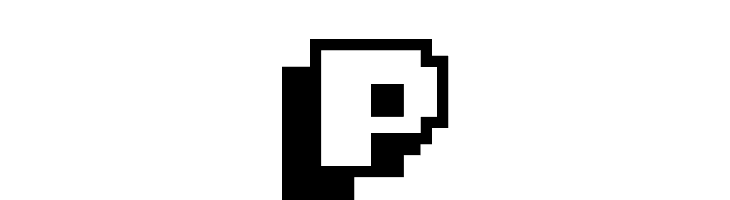
• Pixelmania 字体
( imagex - www.imagex-fonts.com )
A bold, pixelated font with a retro, video game-inspired design.
• PixelMaster 字体
( Twysel )
A pixelated, geometric font inspired by retro digital displays.
• pixelmix bold Regular 字体
• pixelmix micro Regular 字体
• pixelmix Regular 字体
• PixelNoise 字体
A bold, pixelated font with a playful, retro digital aesthetic.
• Pixelogist 字体
( Bolahool Graphics )
A bold, 3D geometric font with a digital, pixel-art style.
• Pixelogist 字体
A pixelated, geometric font inspired by retro digital aesthetics.
• Pixeloid Mono 字体
A pixelated, monospaced font with a retro digital aesthetic.
• Pixeloid Sans 字体
A pixelated, blocky font with a retro digital aesthetic.